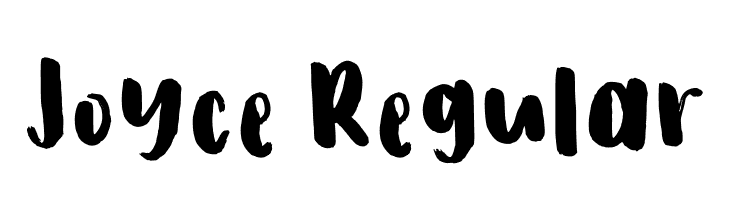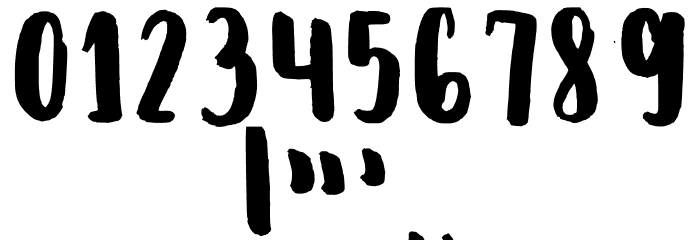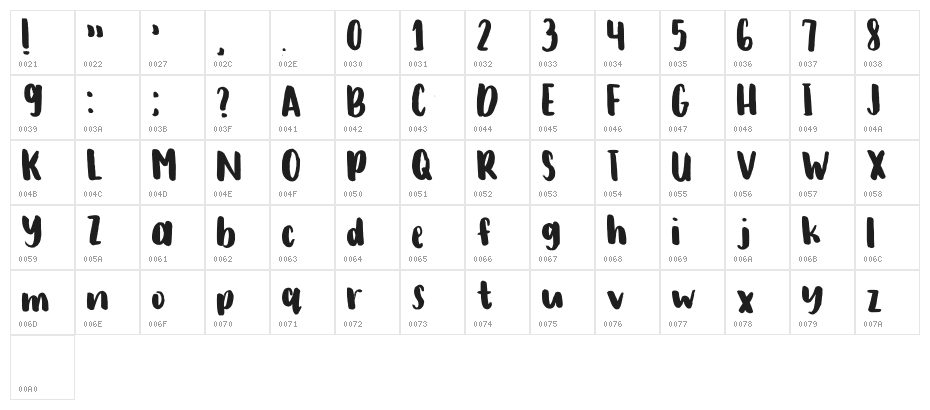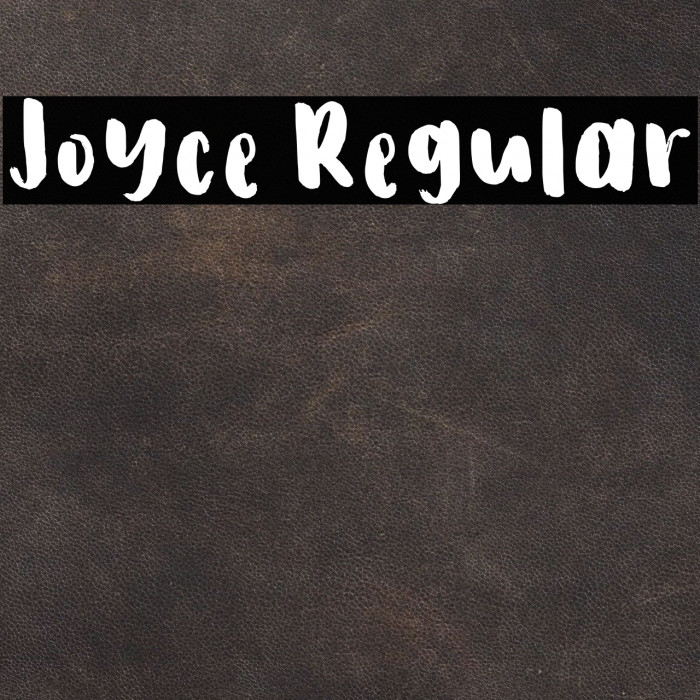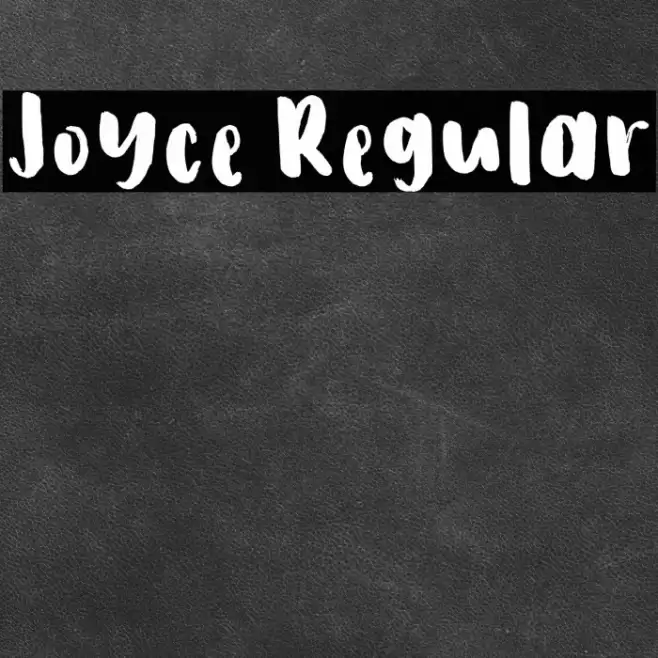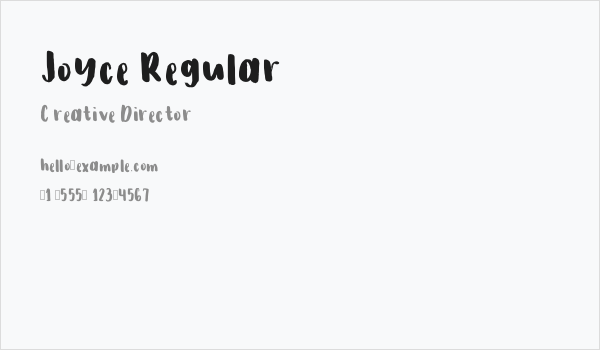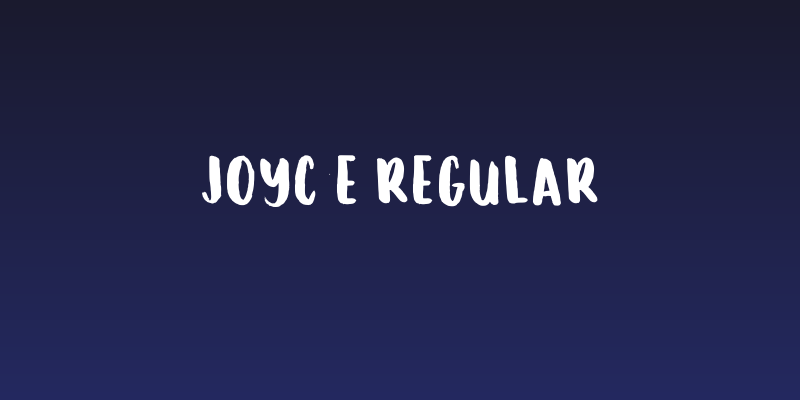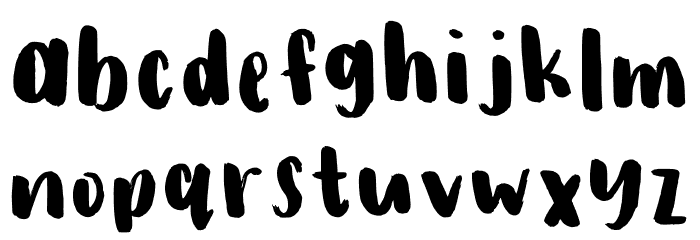
Joyce Regular Font
Joyce Regular Description
This font exudes a bold and expressive handwritten style, characterized by its thick, brush-like strokes and playful, organic forms. The letters have a lively and dynamic appearance, with varying stroke widths that add a sense of movement and energy. The uppercase and lowercase letters maintain a consistent style, with rounded edges and a slightly irregular baseline that enhances its casual and approachable feel. The numerals and special characters follow the same aesthetic, ensuring a cohesive look across all text elements. This font is perfect for projects that require a personal touch or a creative flair.